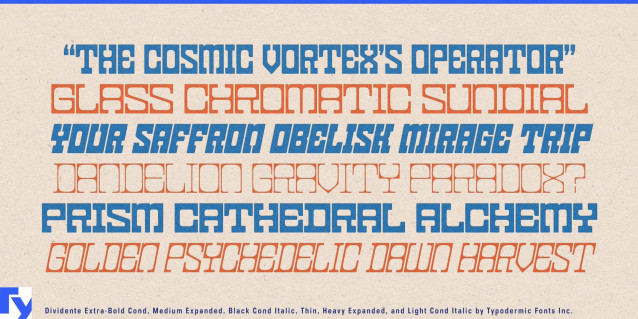
Dividente Font
Dividente Font is a love letter to late-1960s display lettering, when bold geometry and swinging-London optimism ruled the shop windows and magazine covers. Its square-shouldered forms are softened by superelliptical curves inside, creating a tension that feels both mod and modern. Every letter is drawn with an eye toward exuberance—the kind that could headline a Carnaby Street boutique or a psychedelic pop poster without breaking a sweat.
With ten weights from airy light to emphatic black, three widths, and matching obliques, Dividente arrives as a complete, ready-to-use toolkit. The ultra-tight spacing is tuned for impact; track it out for breathing room, and it shifts into a sophisticated, fashion-editorial mode. However you set it, the personality stays warm, decorative, and unmistakably human. This isn’t cold, mechanical geometry. Dividente has the gentle modulations and eccentric proportions that make vintage typography so memorable. Use it for branding, packaging, album covers, event posters, or editorial work where you want to channel that high-style retro energy into something new.
Extensive Latin language coverage keeps your message consistent across markets, while an assortment of symbols ensures your layouts never run short on flair. Dividente doesn’t just recall a design era—it bottles its spirit, ready for you to uncork in your next project.